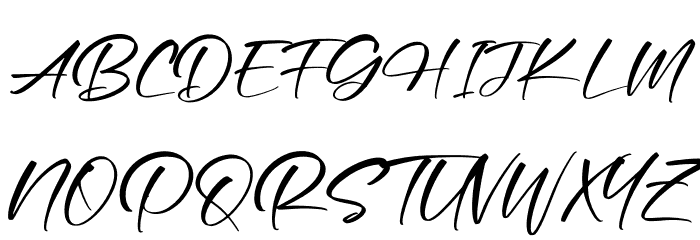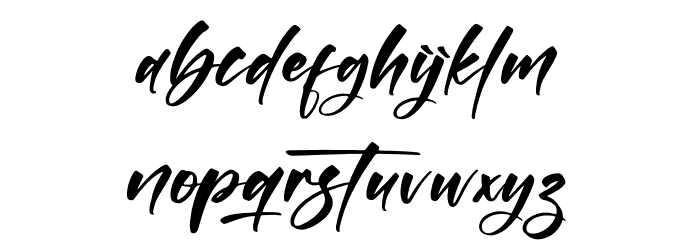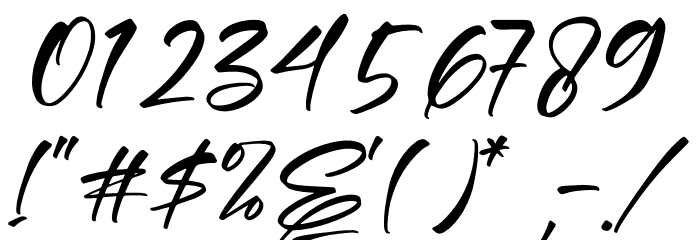
Andresta Montera Font
This font exudes a dynamic and expressive style, characterized by its fluid, handwritten appearance. The letters are crafted with a sense of motion, featuring elegant curves and varying stroke widths that create a lively and artistic feel. The uppercase letters are bold and sweeping, while the lowercase letters maintain a consistent flow, enhancing readability. Numbers and special characters are designed with the same energetic flair, making them stand out while remaining cohesive with the overall design. This font is perfect for projects that require a personal touch or a creative edge.
A dynamic, handwritten-style font with fluid curves and expressive strokes.
- Font: Andresta Montera
- Proposed Projects: Ideal for wedding invitations, branding, social media graphics, and artistic posters.
- Category: Handwritten
- Overall Style: Modern, Artistic
- Use Case: Logos, Headlines, Invitations